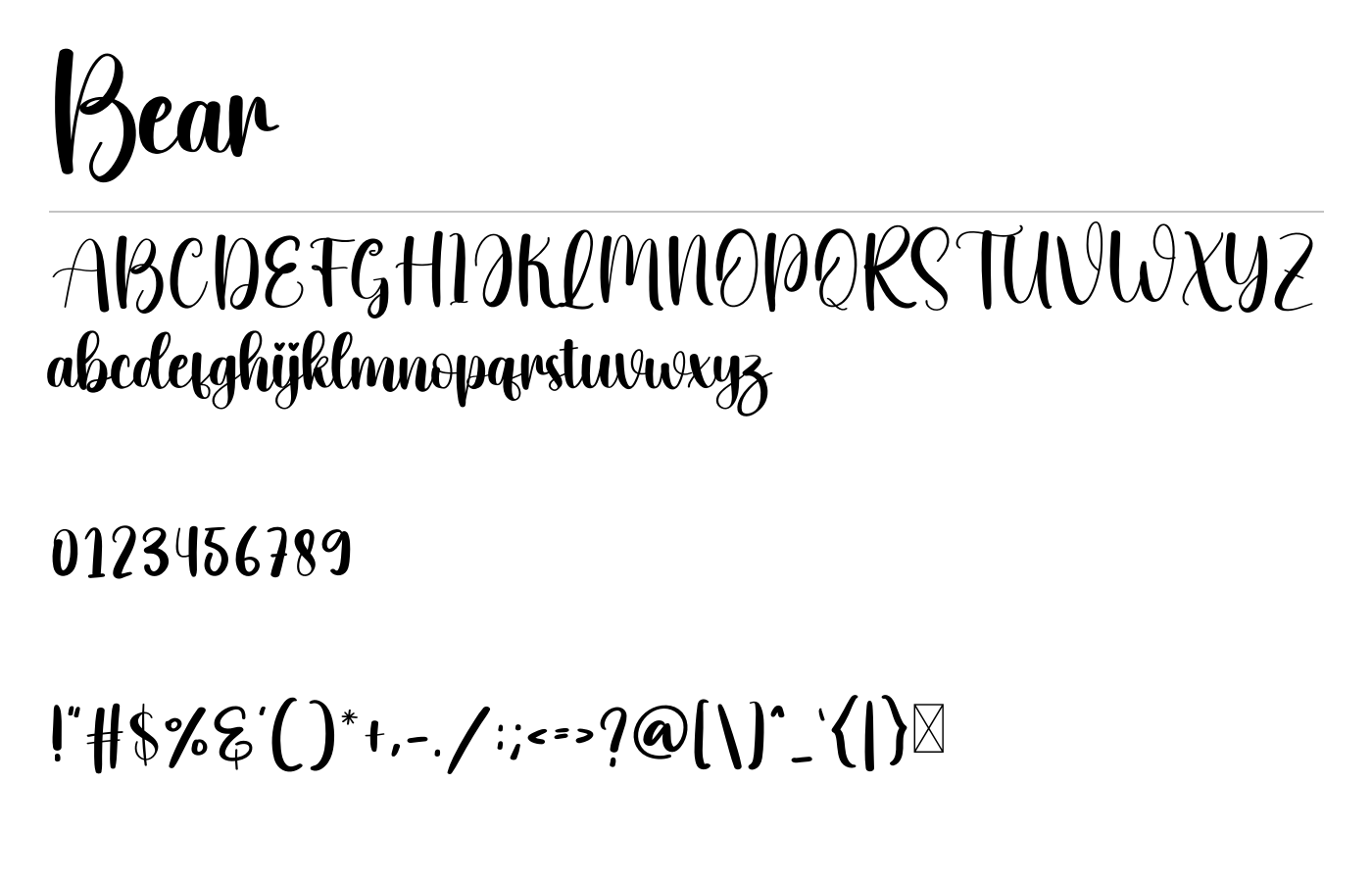
Bear Font is a charming and playful script typeface featuring fluid, hand-drawn strokes with a mix of thick and thin contrasts that create a lively, casual feel. Its elegant yet approachable letterforms, including unique swashes and curls, make it perfect for fun branding, invitations, and creative projects seeking a personal, friendly touch. This font works beautifully for logos, posters, and social media designs where warmth and character are key.
Bear Font
About Bear Font